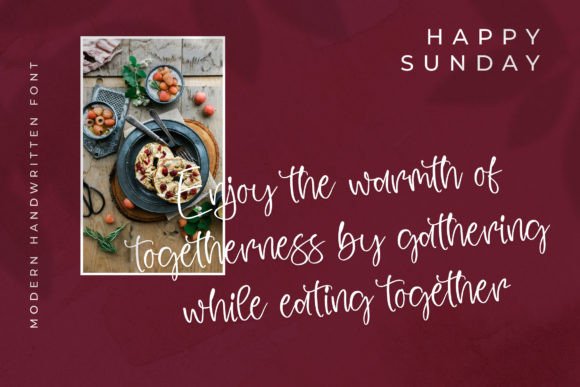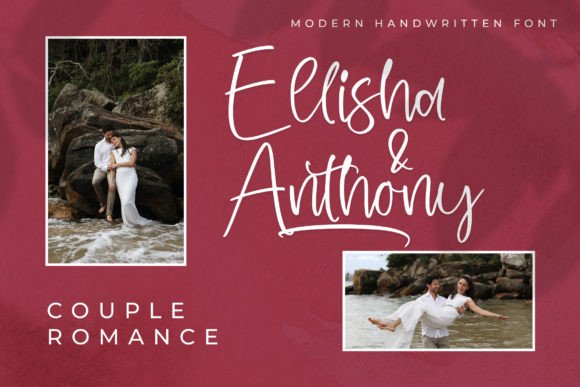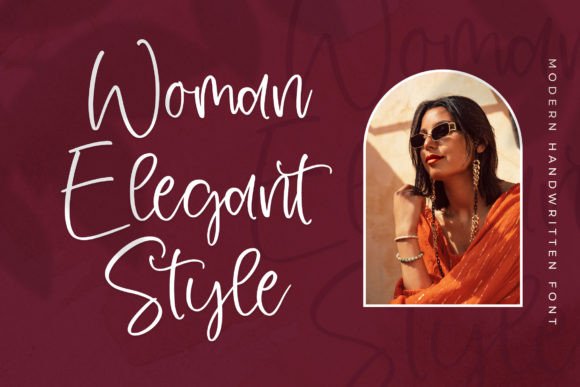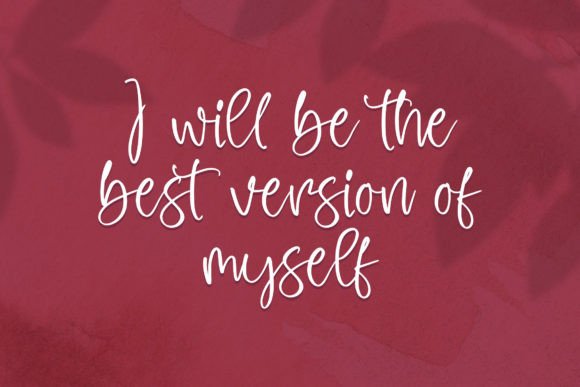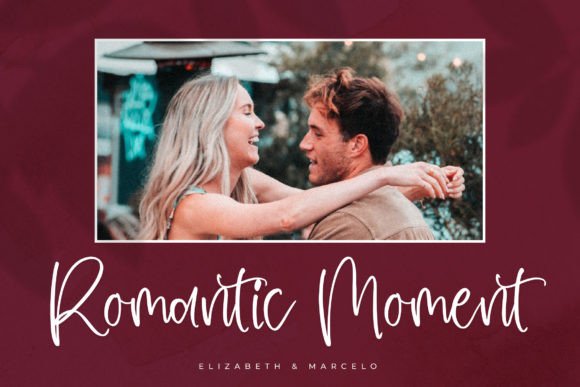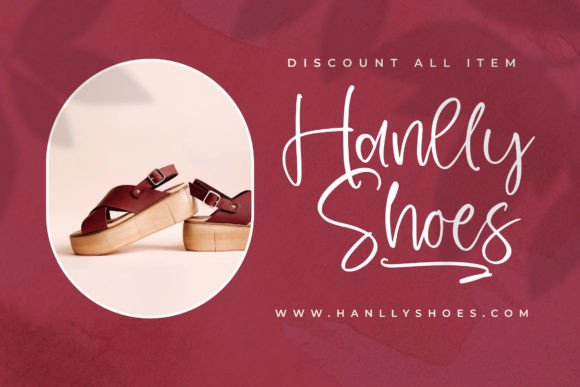
Introduction to Roshivall Font
Have you ever been working on a creative project, pouring your heart and soul into every detail, and then… you need the perfect font to bring it all together? That’s exactly what happened to me when I stumbled upon the Roshivall Font. Its elegant, handwritten script immediately caught my eye, and I knew I had to learn more about it.
The Roshivall Font is a game-changer for designers, offering a high-quality, free download that’s perfect for any project. From logos to branding, homeware designs to product packaging, this versatile font is a design resource like no other. With its transparent background, it’s incredibly easy to use and customize, making it a valuable addition to any creative’s toolkit.
In this article, we’ll dive into the world of Roshivall Font, exploring its features, benefits, and uses. Whether you’re a seasoned designer or just starting out, you’ll discover why this beautiful script font is a must-have for any creative project.
Key Features of Roshivall Font
- Unique, modern font style with a transparent background, perfect for layered designs.
Honest Review: Roshivall Font
As a designer, I’m always on the lookout for high-quality design resources to elevate my creative projects. The Roshivall Font has caught my attention, and I’m excited to share my honest review.
What works well: ✨ The font’s unique and elegant design makes it perfect for a variety of projects, from fashion to lifestyle. The transparent background also gives me flexibility when using it in different contexts. Additionally, the free download option is a major plus, as it allows me to experiment with the font without breaking the bank.
What doesn’t work so well: ⚠️ While the font is beautiful, I find the font size to be a bit limited, especially when it comes to larger text. This might be a concern for designers who need to use the font for headings or titles.
Overall impression: I’m impressed with the Roshivall Font’s high quality and versatility. It’s definitely a valuable addition to my design resource library. If you’re looking for a stylish and professional font, I’d recommend giving it a try.
- Unique and elegant design
- Transparent background for flexibility
- Limited font size options
Transparent Background and Design Tips
When using Roshivall Font, consider using a transparent background to give your design a clean and modern look. To get the most out of this font, experiment with different font sizes, colors, and combinations to create visually appealing designs.
Roshivall Font is suitable for a variety of creative projects, including:
Alternatives to Roshivall Font
The Great Vibes Font is a high-quality, elegant script font that is perfect for creative projects requiring a sophisticated touch. It’s ideal for use in wedding invitations, luxury branding, or any design where a refined, handwritten feel is desired.
Great Vibes Font is similar to Roshivall Font in its elegant, cursive style, but it has a more refined and sophisticated look. Great Vibes Font is available for free download and offers a transparent background, making it suitable for use on various design resources.
The Alex Brush Font is a high-quality, handwritten script font that is ideal for creative projects requiring a personal touch. It’s perfect for use in branding, typography, and other design elements where a unique, handwritten feel is desired.
Alex Brush Font is similar to Roshivall Font in its elegant, cursive style, but it has a more rustic and vintage look. Alex Brush Font is available for free download and offers a transparent background, making it suitable for use on various design resources.